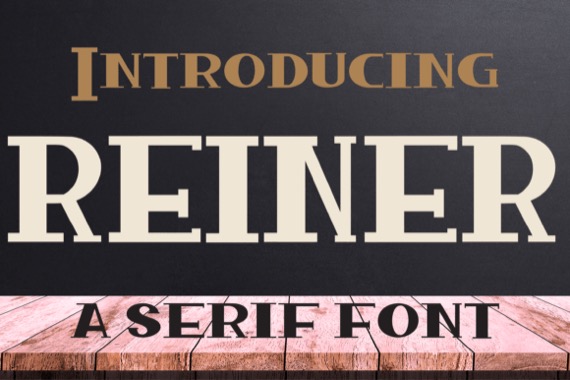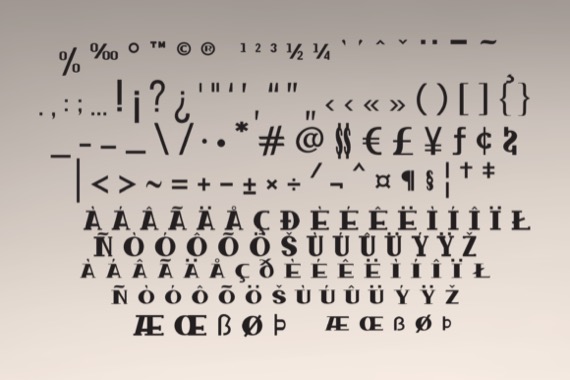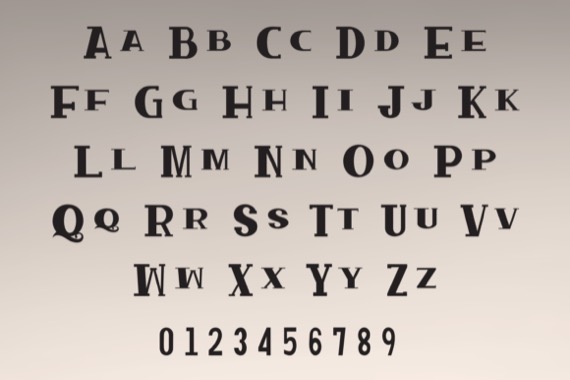
This is a quite classic and modern serif font from RancesRein, Reiner is a bold and assertive serif font. No matter the topic, this font will be an incredible asset to your fonts’ library, as it has the potential to elevate any creation.
Reiner Serif Font
Designer, Publisher: RancesRein